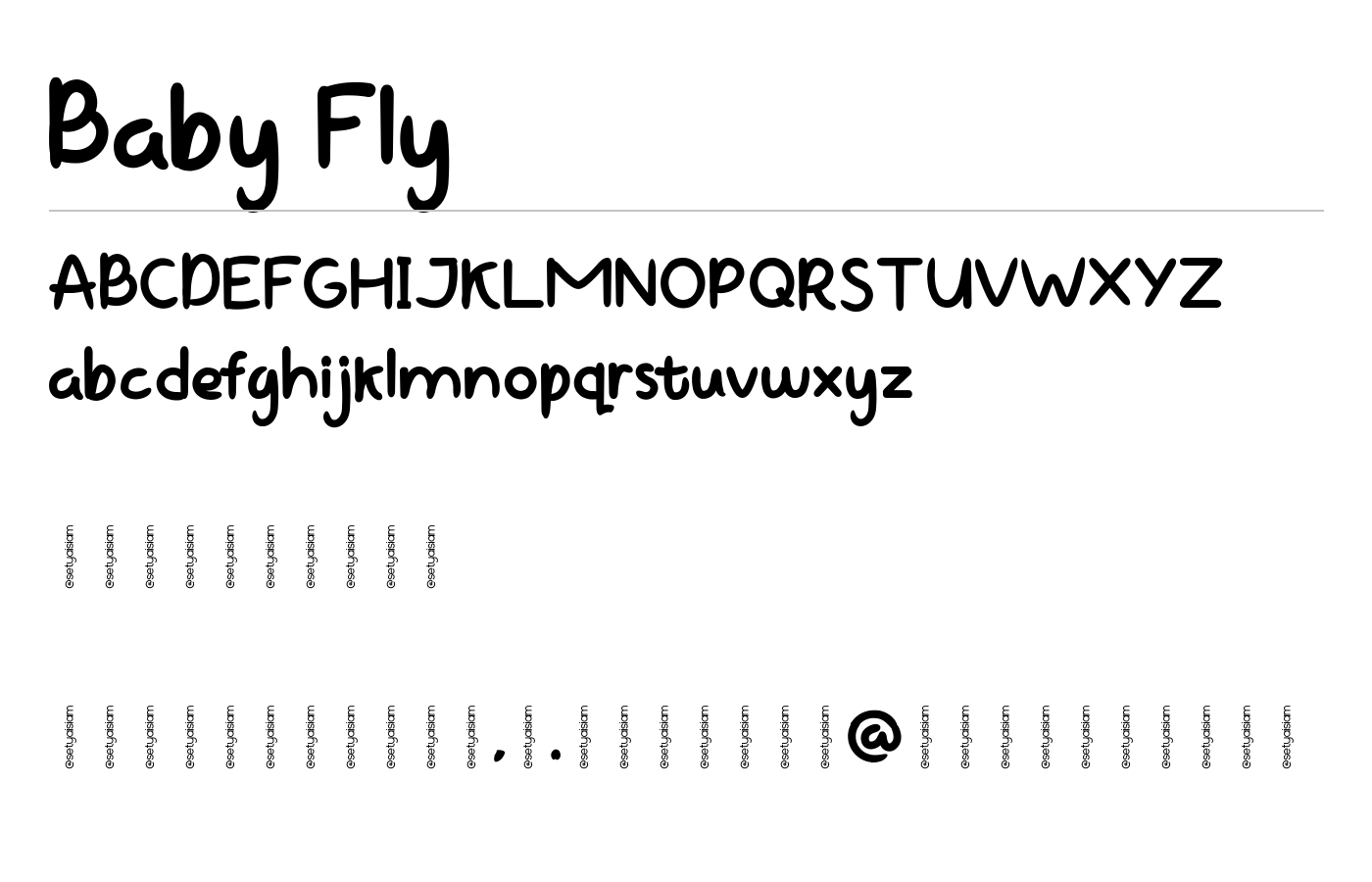
Baby Fly is a playful and casual handwritten sans serif font with rounded, soft strokes and a friendly, approachable character. Its moderately tall x-height and slightly irregular letterforms give it a charming, childlike feel that works wonderfully for informal design projects, kids' materials, and fun, creative branding. This font shines in logos, posters, and websites where a warm, personal touch is desired.
Baby Fly Font
About Baby Fly Font